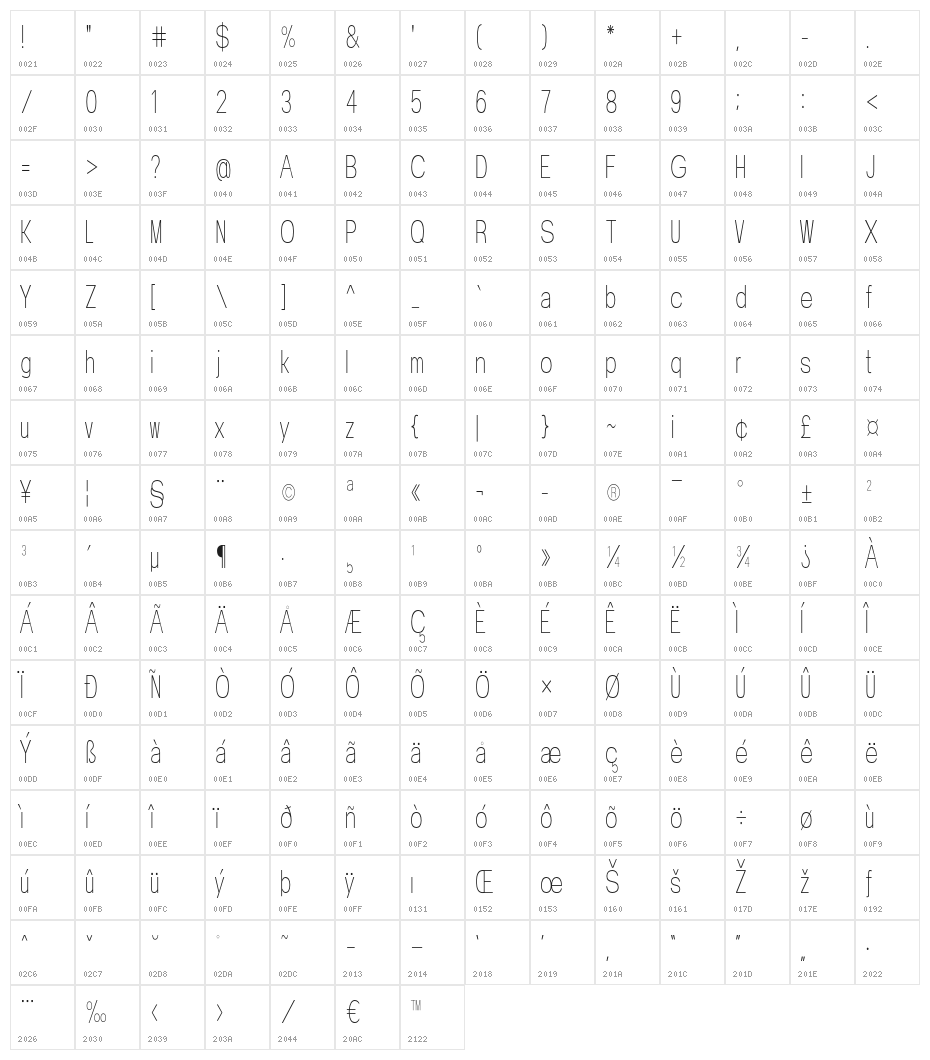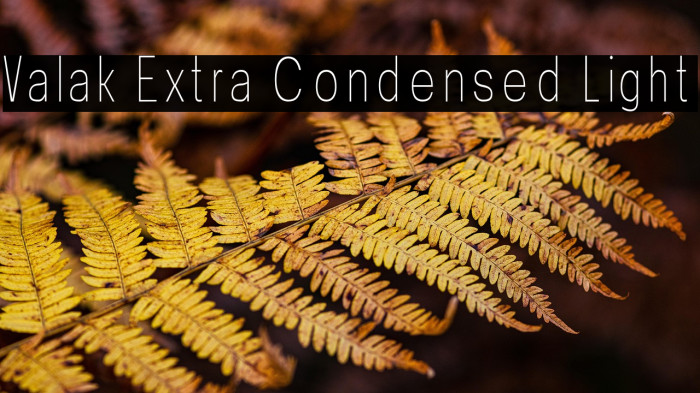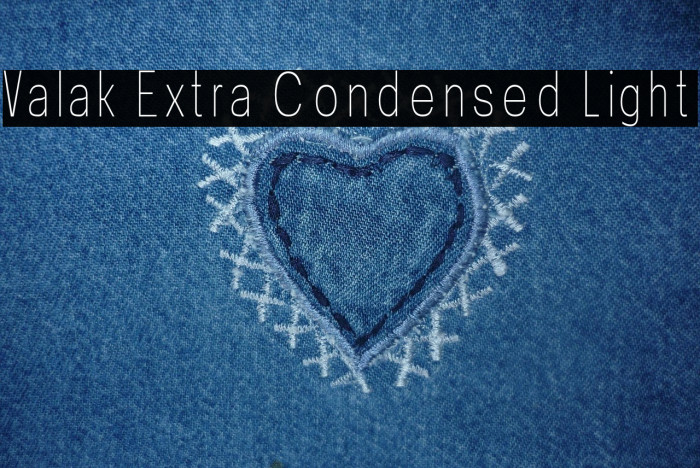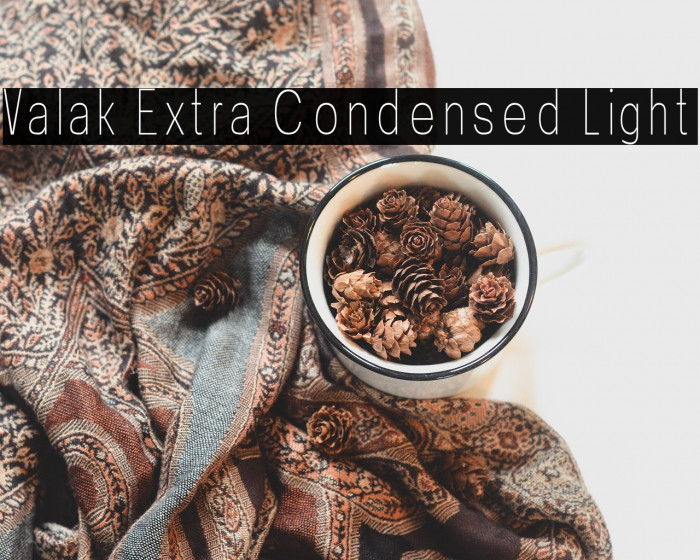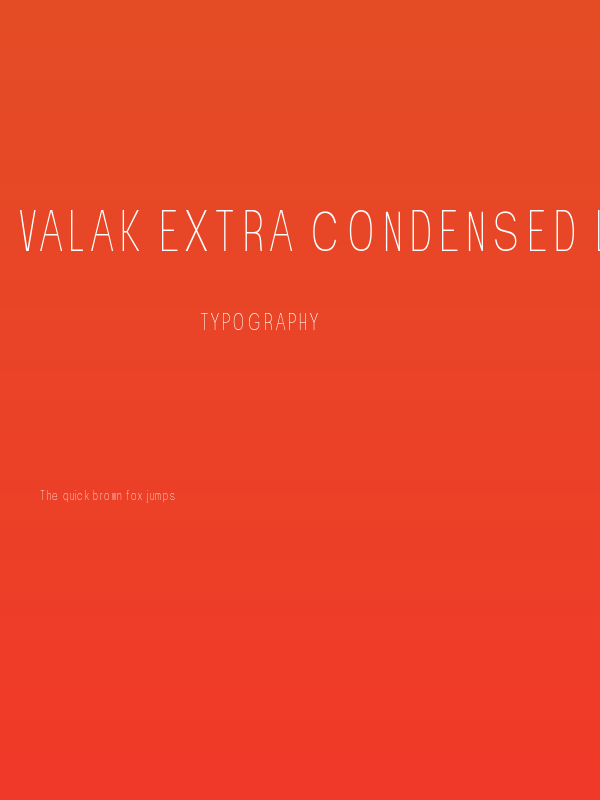
Valak Extra Condensed Light Font
Valak Extra Condensed Light Description
This font features a sleek and modern design with an extra-condensed width, making it ideal for space-saving applications. The characters are light in weight, providing an airy and minimalist aesthetic. The sans-serif style ensures a clean and straightforward appearance, enhancing readability even at smaller sizes. The uniform stroke width across all characters contributes to a harmonious and balanced look. The font's design is versatile, suitable for both digital and print media, and can be effectively used in various design contexts where a contemporary and uncluttered feel is desired.
| Proposed Projects | Ideal for modern branding, minimalist posters, magazine layouts, and digital interfaces. |